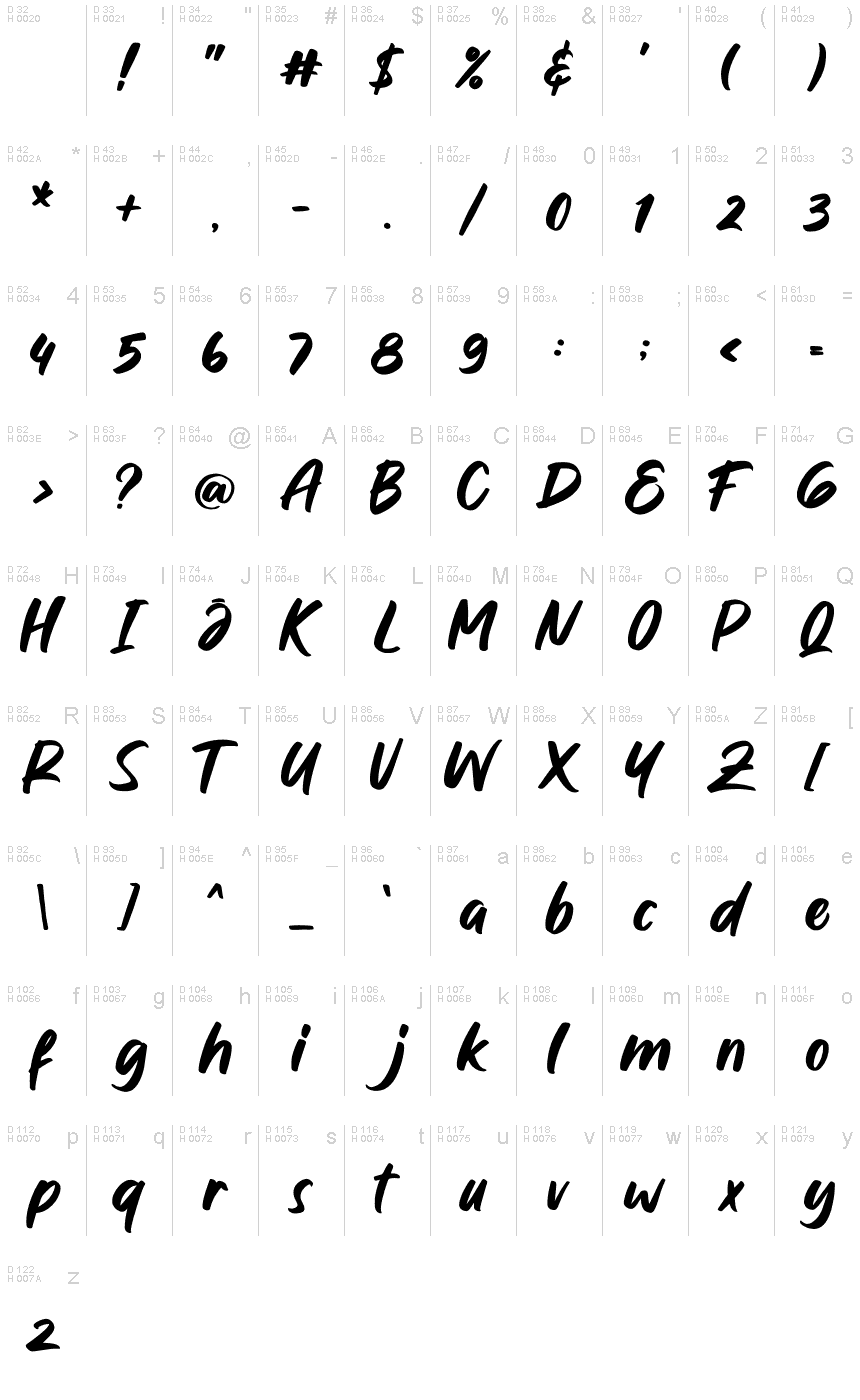
Milesbingo Demo
Milesbingo is a stunning semi-bold font designed by Rochart Studio. This delightful handwritten brush typeface will give your projects a unique, authentic touch that will make them stand out from the crowd. With its beautifully crafted strokes and natural feel, Milesbingo is perfect for adding a personal touch to your branding, packaging, or product design. Use it for invitations, logos, social media posts or any project that requires a touch of creativity and fun. Get inspired with Milesbingo and let your imagination run wild!